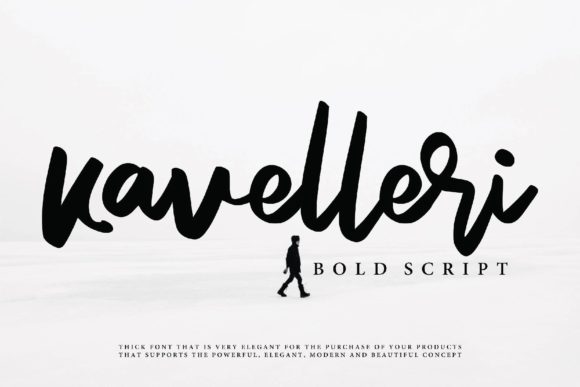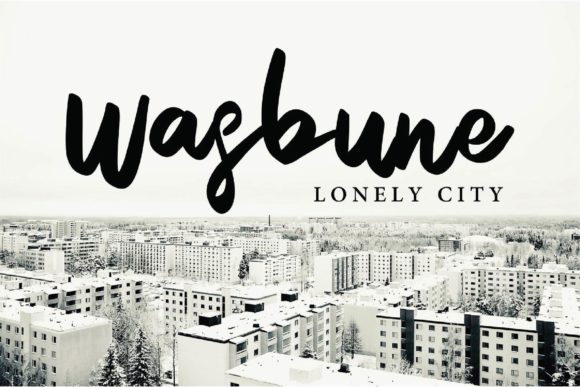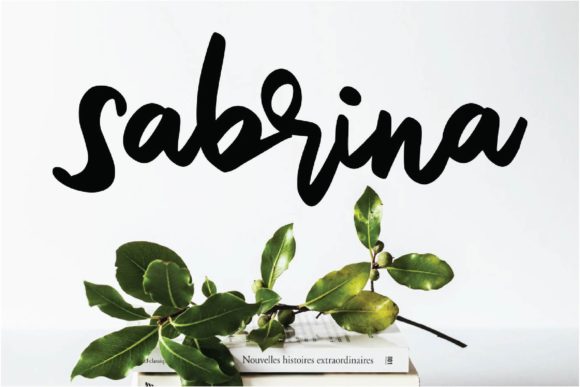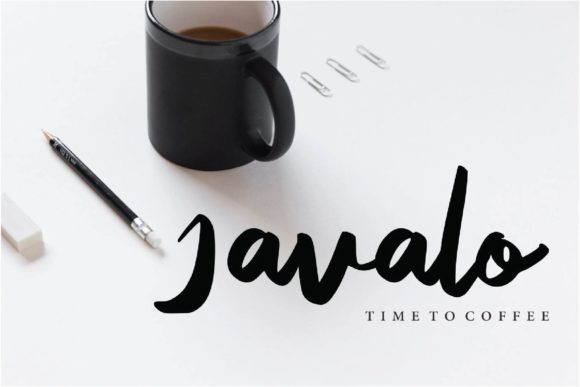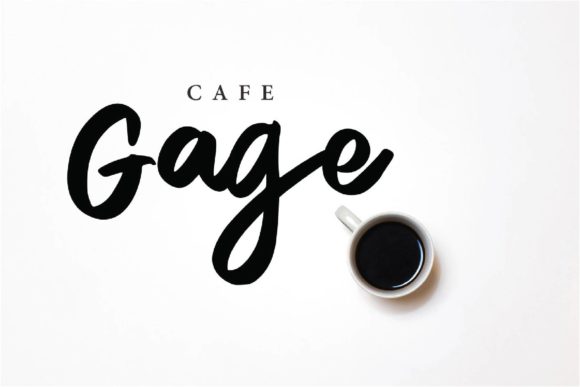
Kavelleri Font
About Kavelleri Font
Kavelleri is a sweet and cool handwritten font with a sweet feel. Use it to turn any design project into a true standout!